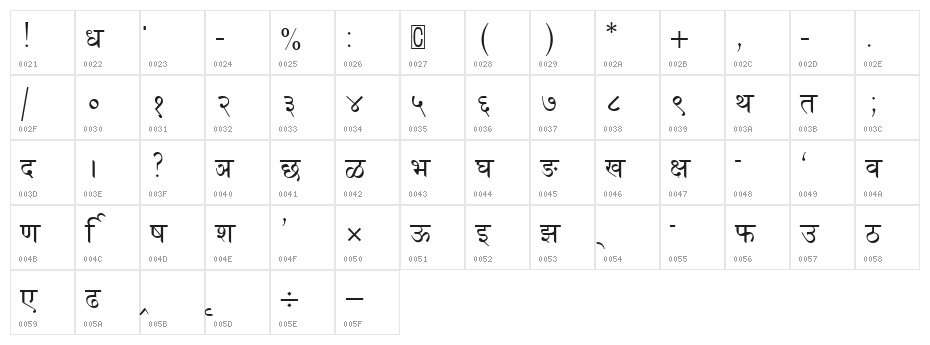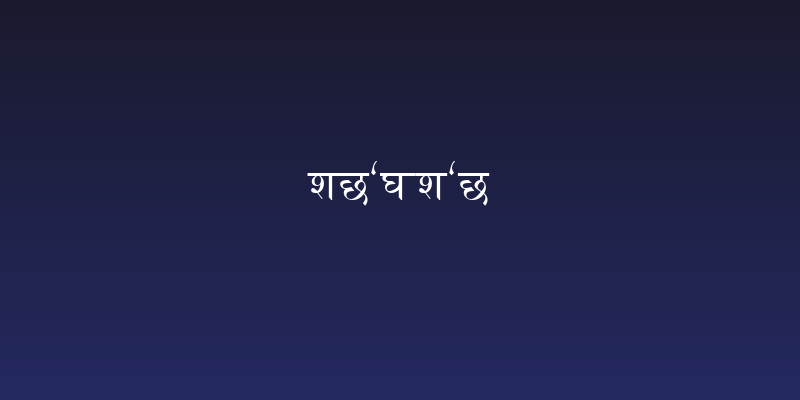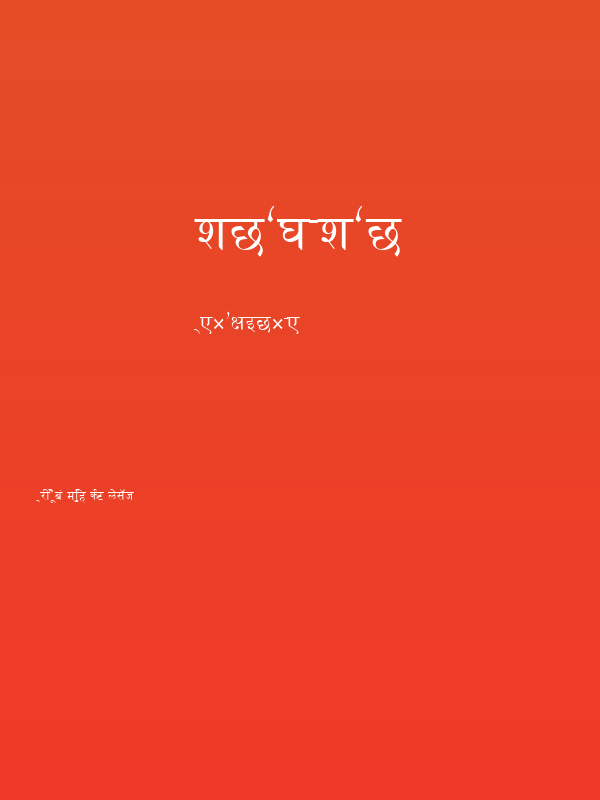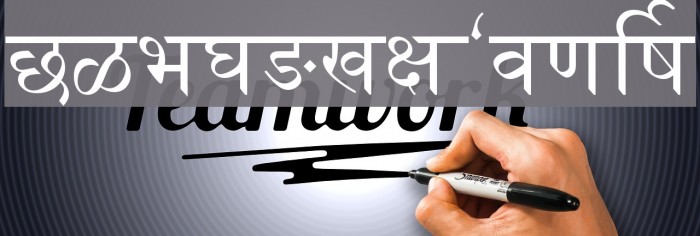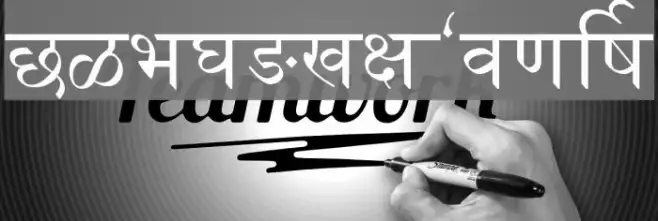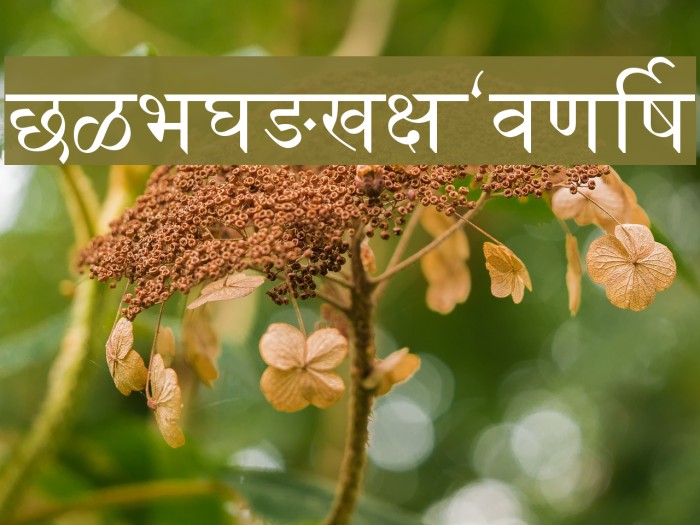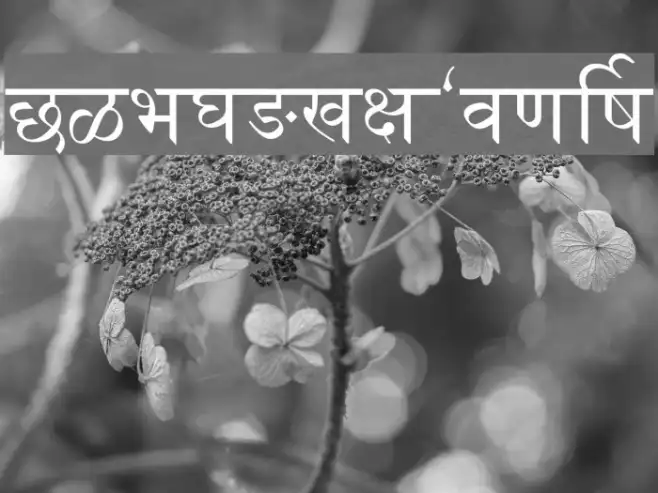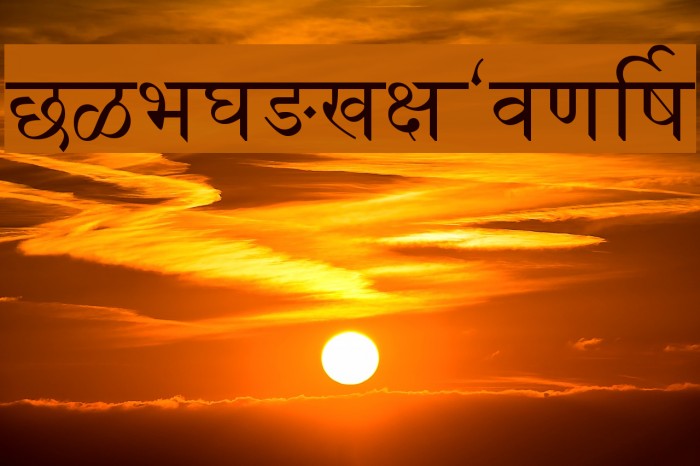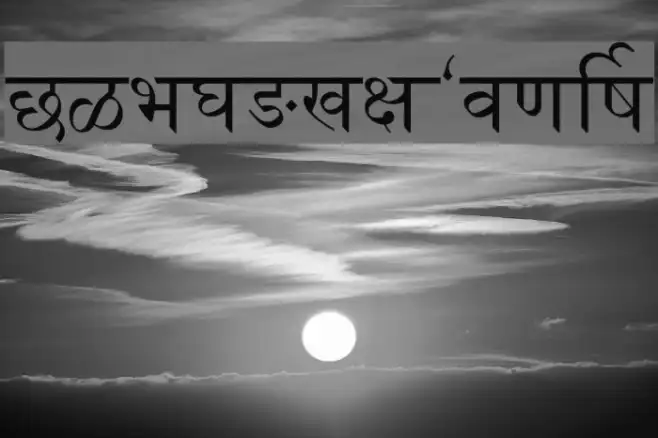
Naidunia Font
Naidunia Description
This font features a traditional Devanagari script style, characterized by its elegant and intricate letterforms. The characters are well-defined with a moderate stroke contrast, giving them a balanced and harmonious appearance. The script maintains a classic and cultural aesthetic, suitable for conveying a sense of tradition and heritage. The numerals and special characters are designed to complement the overall style, ensuring consistency across all glyphs. The font's design is both functional and decorative, making it versatile for various applications.
| Use Case | Headlines, Cultural texts, Artistic designs |
| Proposed Projects | Ideal for cultural publications, educational materials, and artistic projects that require a traditional touch. |